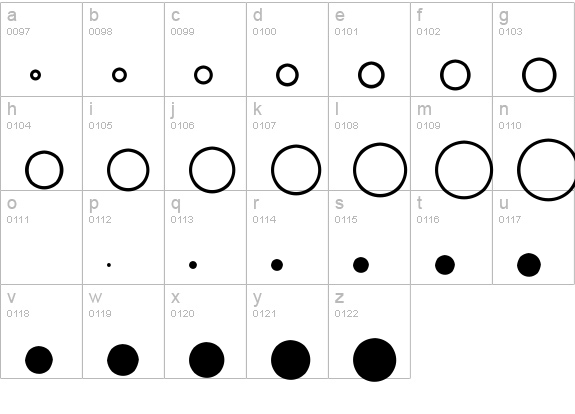
LaTex_Circle Bold Font Details
LaTex_Circle Bold is a strong, high-contrast variant in the LaTex_Circle typeface family \xE2\x80\x94 well suited to headlines, attention-grabbing titles, and strong calls-to-action.
LaTex_Circle Bold font is a modern and stylish typeface that adds a touch of sophistication to any design project. With its bold and circular letterforms, this font is perfect for creating eye-catching headlines, logos, and titles. The clean and bold lines of LaTex_Circle Bold make it easy to read at any size, ensuring that your message gets noticed. One of the best things about LaTex_Circle Bold font is that it is available for free. You can download this font at FontsMarket.com, where you will find a wide selection of high-quality fonts for all your design needs. Whether you're a professional designer or a casual hobbyist, LaTex_Circle Bold font is a valuable addition to your font collection. The versatility of LaTex_Circle Bold font allows it to be used in a variety of design projects. From print materials such as brochures and posters, to digital designs like websites and social media graphics, this font will elevate your creations to the next level. The bold and dynamic nature of LaTex_Circle Bold font adds a sense of energy and excitement to your designs, making them stand out from the crowd. In addition to its stylish appearance, LaTex_Circle Bold font is also easy to work with. It is compatible with most design software and can be easily installed on your computer or device. Whether you're a beginner or an experienced designer, you'll find that using LaTex_Circle Bold font is a breeze. Overall, LaTex_Circle Bold font is a must-have for anyone looking to add a modern and bold touch to their design projects. Its free availability and ease of use make it a valuable resource for designers of all levels. Download LaTex_Circle Bold font today from FontsMarket.com and take your designs to new heights.